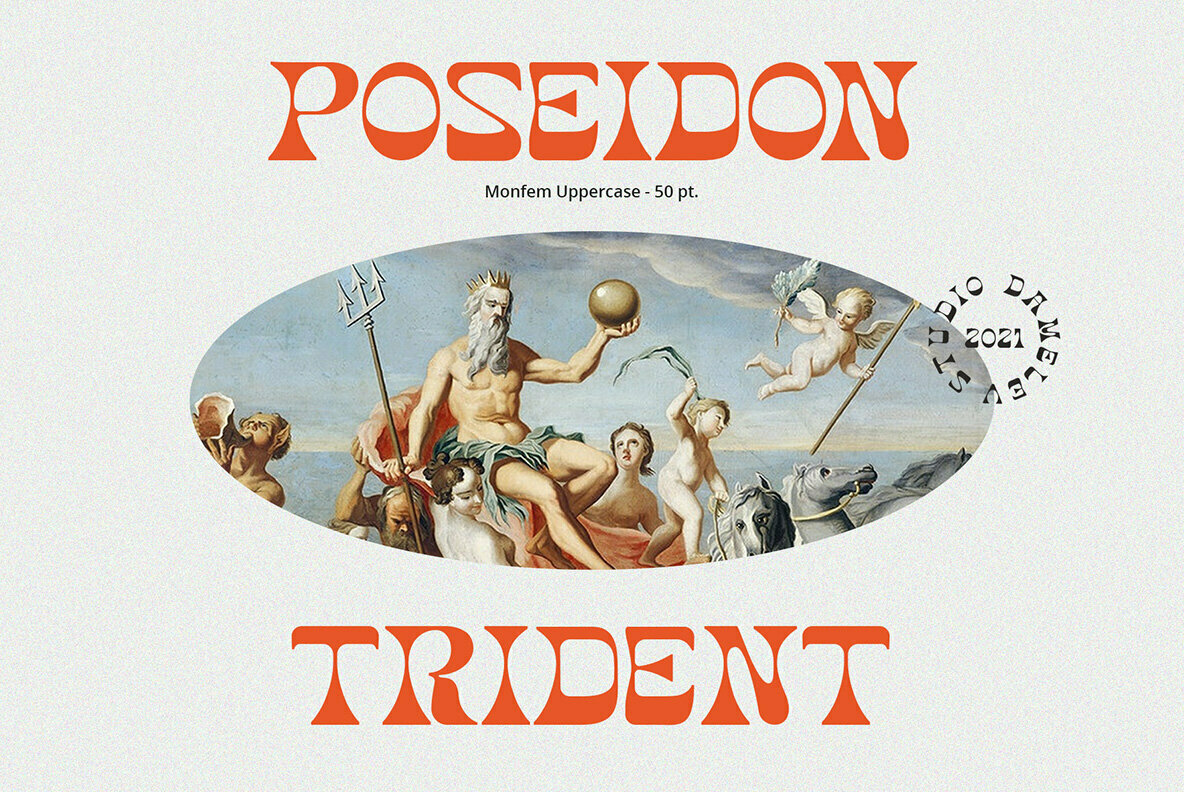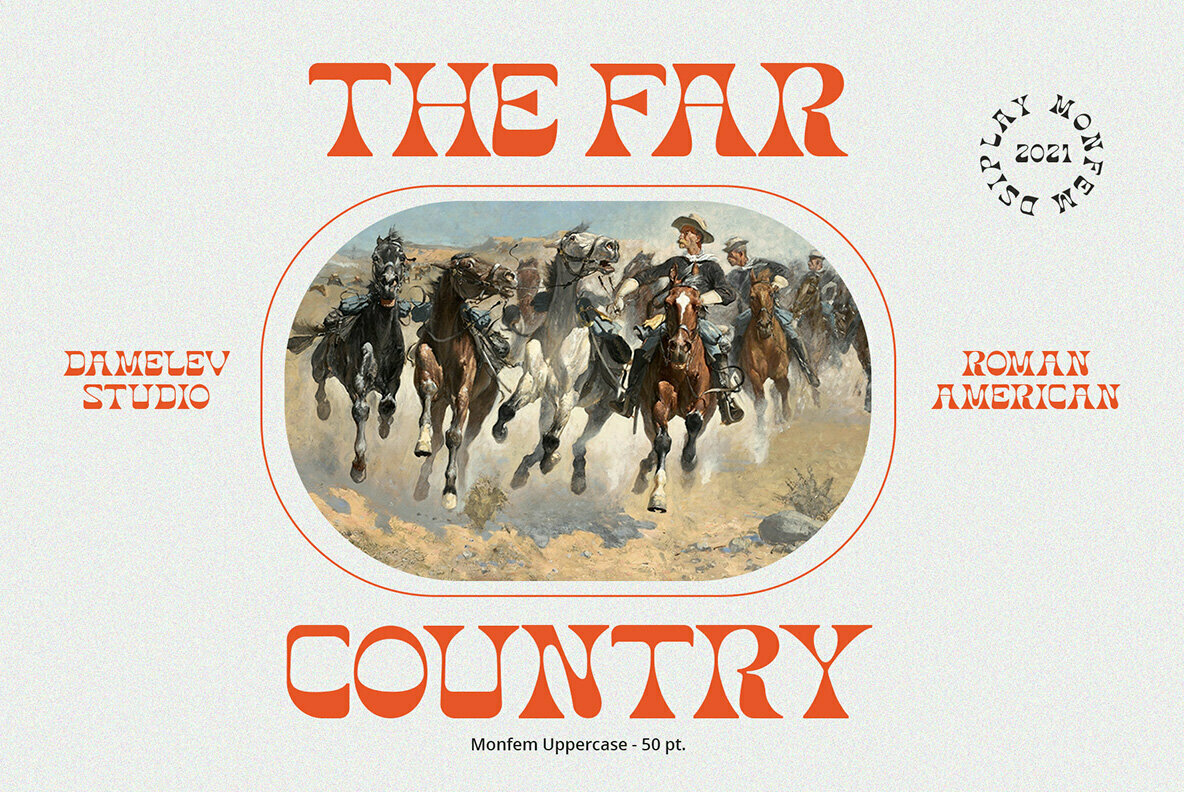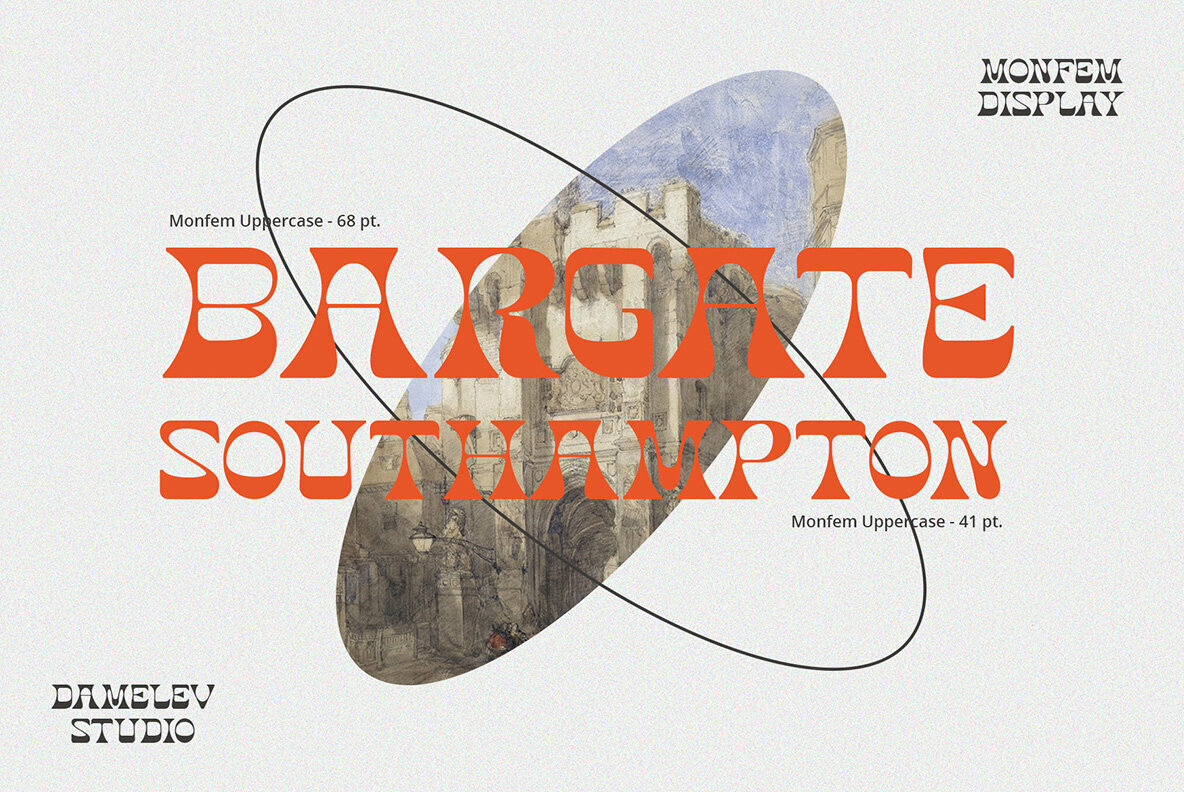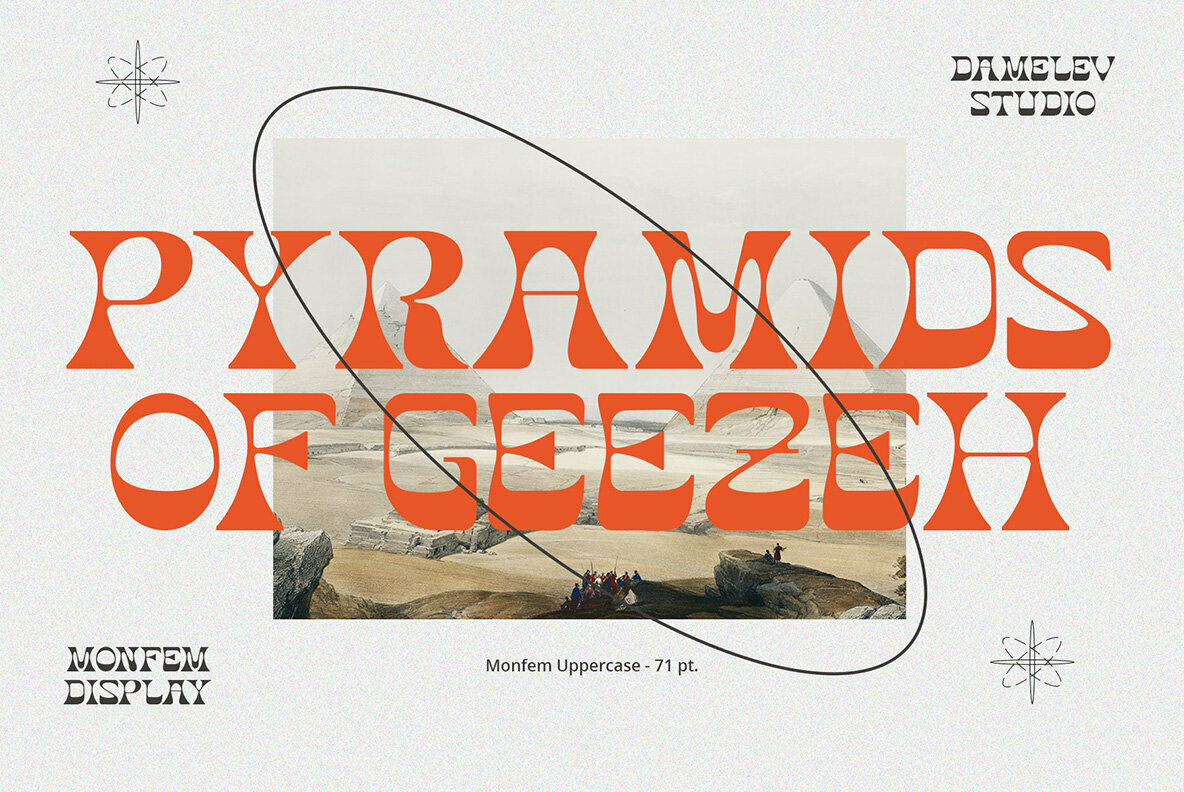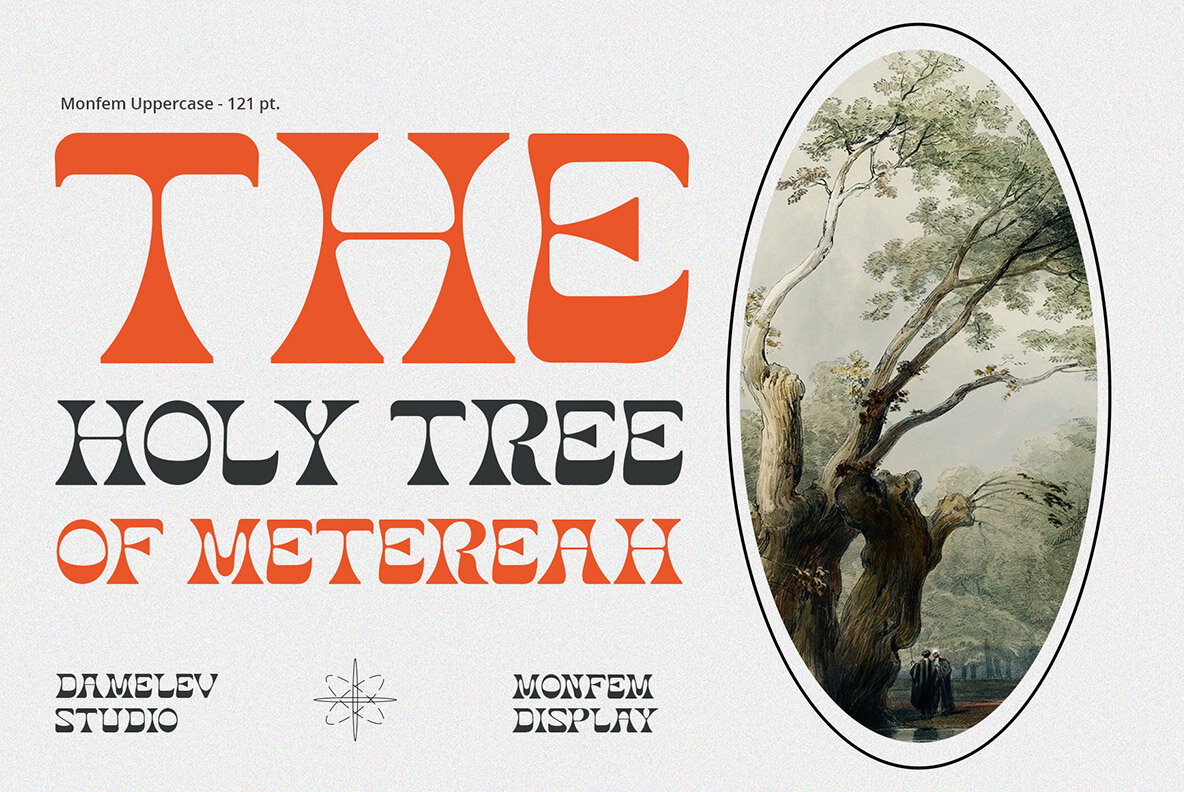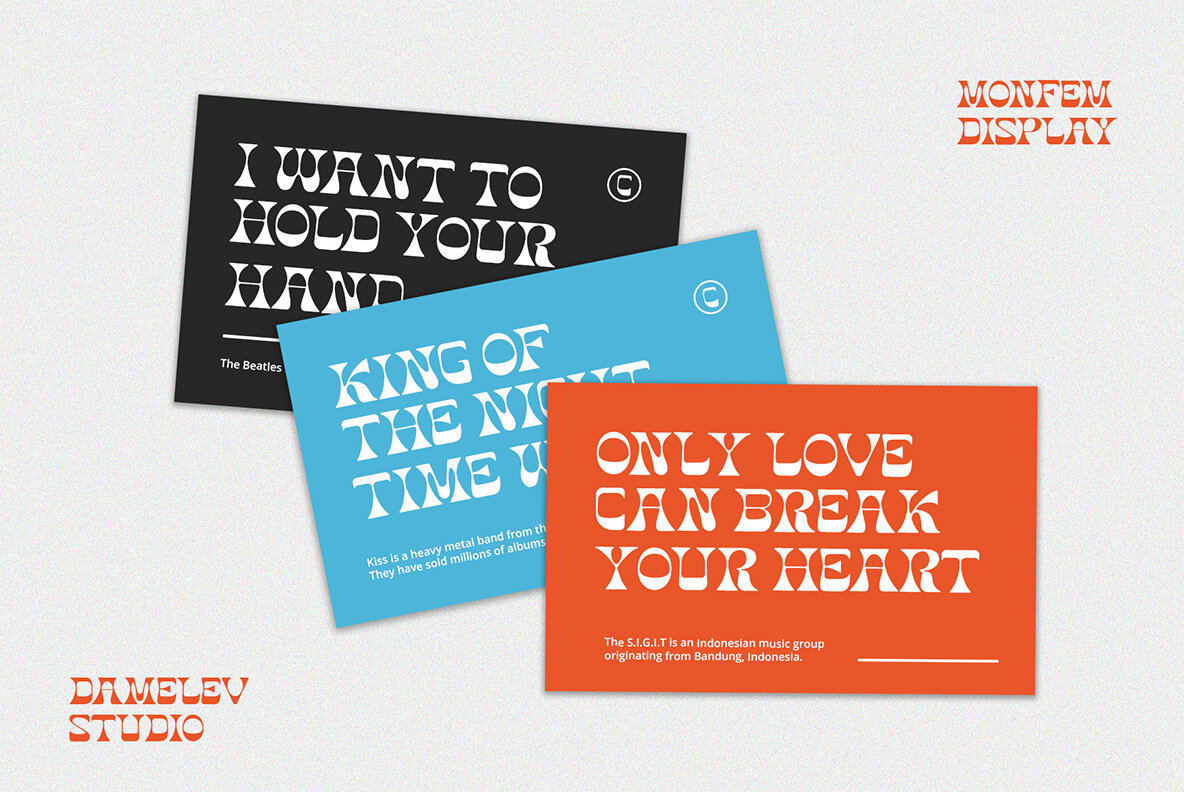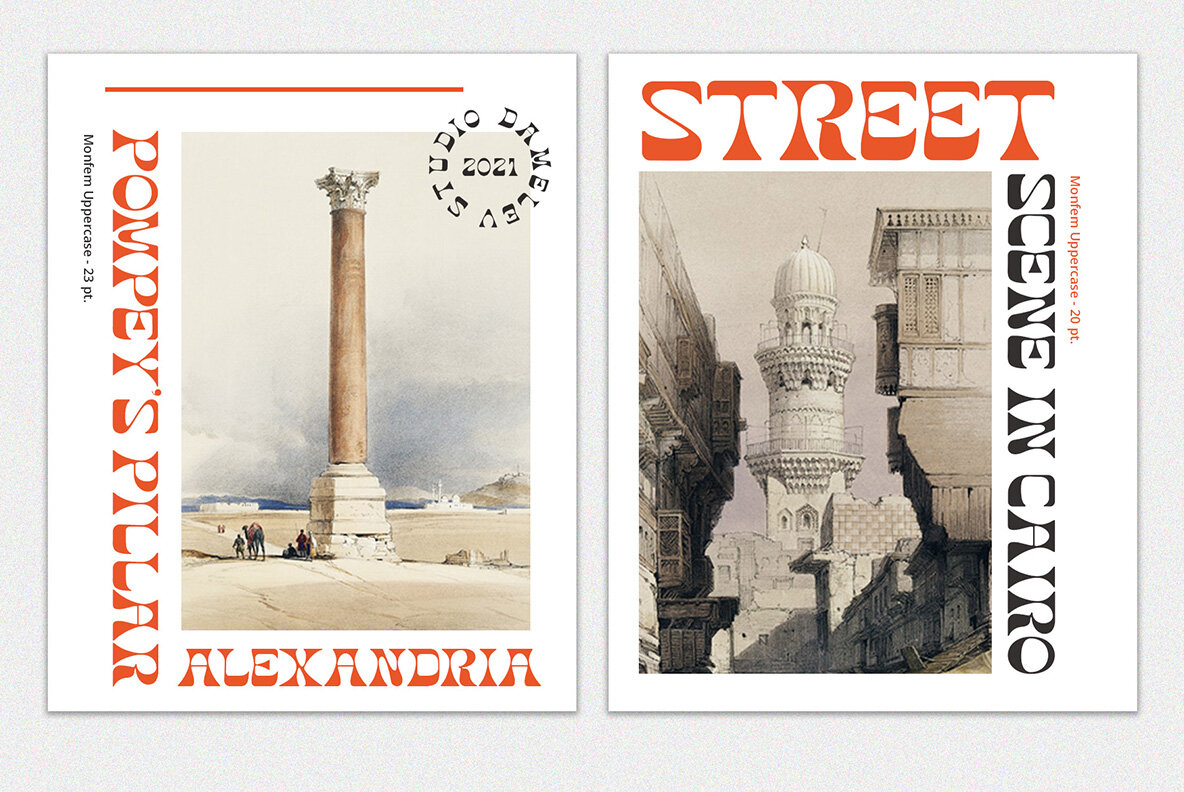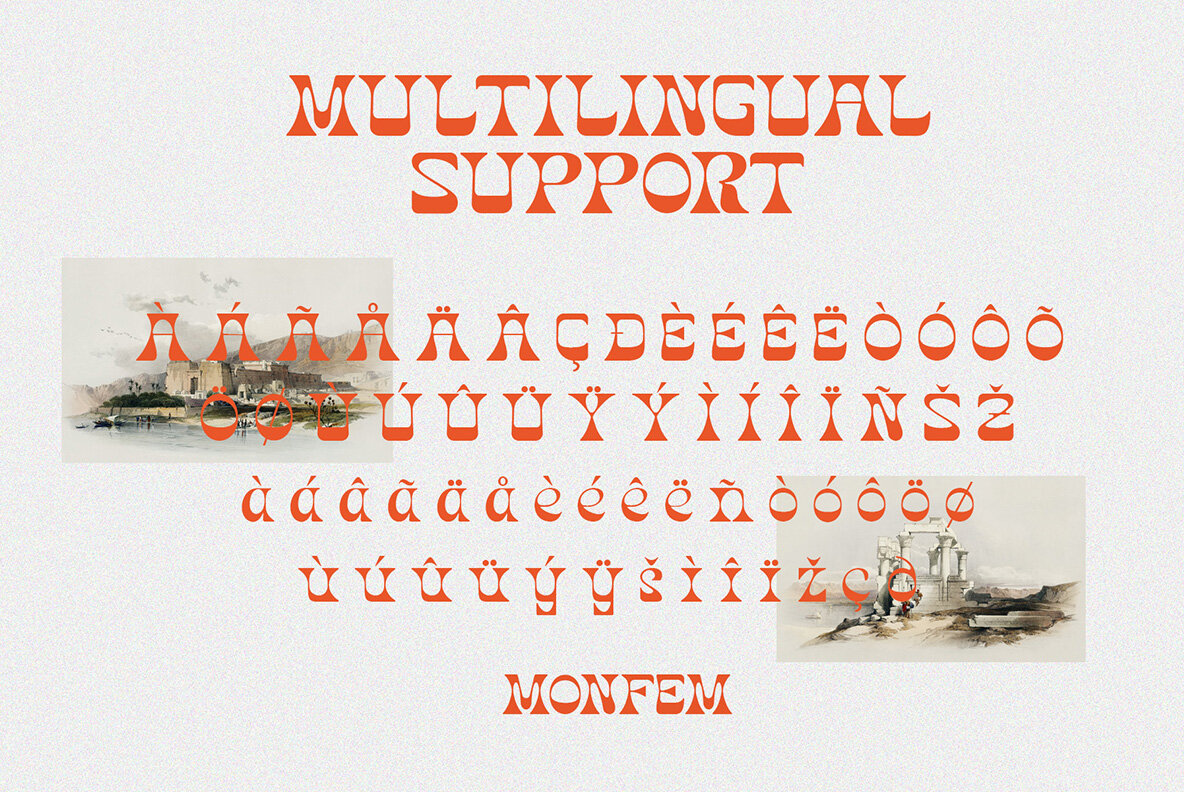
Monfem Font
Monfem
A trendy typeface with a twisted shape style, Monfem combines classic and modern styles to make it look very trendy, is perfect for your design and make your designs look even bolder.